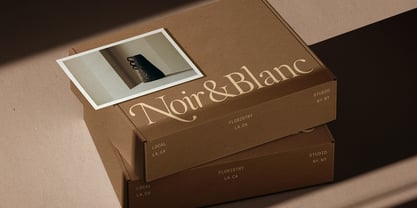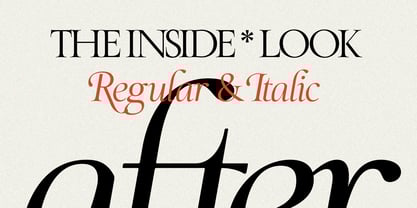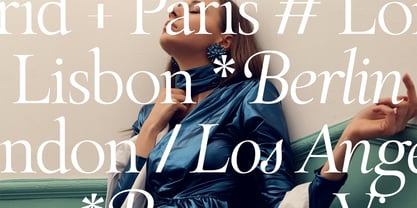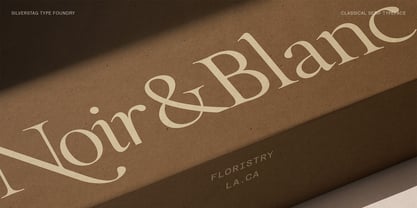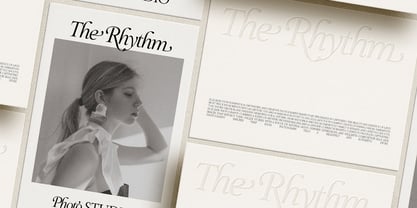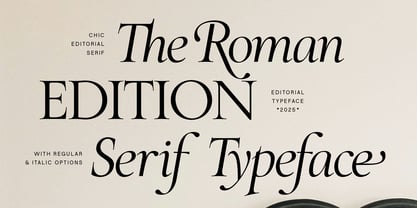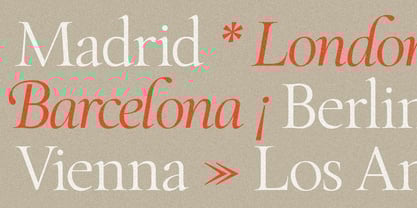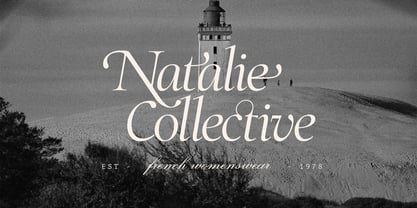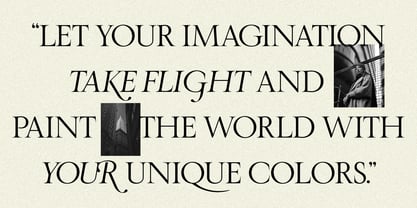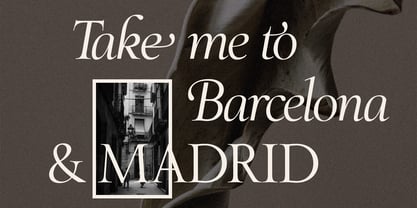
SLTF The Roman Edition
by SilverStag
The SLTF The Roman Edition Font Family was designed by SilverStag and published by SilverStag. SLTF The Roman Edition contains 2 styles and family package options.
SLTF The Roman Edition – A Masterpiece of Classical Elegance & Editorial Sophistication
Step into a world of timeless typography with SLTF The Roman Edition, a typeface meticulously crafted to embody the rich heritage of classical Roman letterforms. Designed for those who appreciate refined aesthetics, this luxurious serif font blends historical inspiration with contemporary finesse, making it an essential tool for high-end branding, editorial design, luxury packaging, and sophisticated creative projects.
With flawless proportions, delicate serifs, and an undeniable air of prestige, The Roman Edition is more than just a typeface—it’s a statement of elegance, culture, and craftsmanship. Whether you’re designing a prestigious magazine layout, a heritage-inspired brand identity, or timeless wedding invitations, this font ensures your work exudes grace, class, and visual harmony.
A Typeface Crafted for Distinction
The Roman Edition is a celebration of the Golden Age of typography, designed with editorial refinement and luxury branding in mind. Every curve, serif, and ligature has been carefully drawn to bring beauty and fluidity to your projects, ensuring each word you set becomes a visual masterpiece.
This font is available in two perfectly balanced styles:
• Regular – A crisp, poised serif that speaks with clarity, confidence, and timeless elegance. Perfect for magazine headlines, book titles, premium product branding, and corporate identity.
• Italic – A refined counterpart to the Regular style, featuring graceful swashes, ornate flourishes, and calligraphic endings. Designed for editorial highlights, invitations, luxury fashion campaigns, and artistic branding.
Powerful Features for Elevated Design
• Over 50 Ligatures & Alternates – Carefully crafted to create natural letter connections, offering a seamless handwritten effect with sophisticated typographic nuances.
• Editorial-Ready Aesthetic – Designed with luxury magazines, fine art publications, and book covers in mind, making it ideal for long-form text layouts and high-impact headlines.
• Flawless Optical Balance – Every character has been drawn to maintain visual consistency, ensuring perfect readability and elegance at any scale.
• Multi-Language Support – Covering over 90 languages, The Roman Edition is crafted to meet the needs of a global audience.
• Luxury Meets Functionality – Whether in fashion branding, bespoke packaging, or advertising, this font captures the essence of high-end design.
Perfect for a Wide Range of Applications
The Roman Edition is designed to shine in both print and digital. Whether your project requires a refined editorial layout, a luxury logo, or an elevated social media presence, this typeface delivers unmatched sophistication.
Branding & Identity Make an unforgettable impression with branding that exudes legacy and craftsmanship. Ideal for fashion houses, perfumeries, jewelry brands, and premium product packaging.
Editorial & Publishing Elevate your magazine layouts, book covers, newspaper mastheads, and online publications with a typeface that speaks the language of tradition and refinement.
Luxury Packaging & Invitations For wedding invitations, bespoke stationery, wine labels, and beauty product packaging, The Roman Edition enhances designs with an air of exclusivity and grace.
Web & Digital Design From website headlines to social media graphics, this typeface delivers timeless appeal while ensuring readability and impact on modern digital platforms.
SLTF The Roman Edition is not just a font—it’s a journey into typographic excellence. It is designed for creators, designers, and brands who seek to bring historical grandeur and modern refinement into their work. Whether used for a luxury ad campaign, a museum exhibition, or a high-end publication, this typeface brings an unparalleled level of prestige.
Now available—elevate your design game with the timeless sophistication of SLTF The Roman Edition.
Designers: SilverStag
Publisher: SilverStag
Foundry: SilverStag
Design Owner: SilverStag
About SilverStag
Hey, I’m Alen — the guy behind SilverStag Type Foundry. What started as a random compliment on my handwriting turned into a full-blown obsession with letters. I used to mess around with paints and watercolors, now I build typefaces that feel personal, a little imperfect, and full of soul.I don’t stick to one style. I like bouncing between rough textures and clean lines, from bold sans to poetic ligatures. Every font I make is a reflection of a moment — a song I couldn’t stop playing, a film that stayed with me, a feeling I had to turn into form. This is more than design for me. It’s a way of connecting. So if you’re into fonts that feel like stories — a little human, a little wild — you’re in the right place.Let’s make something unforgettable.— SilverStag Type Foundry